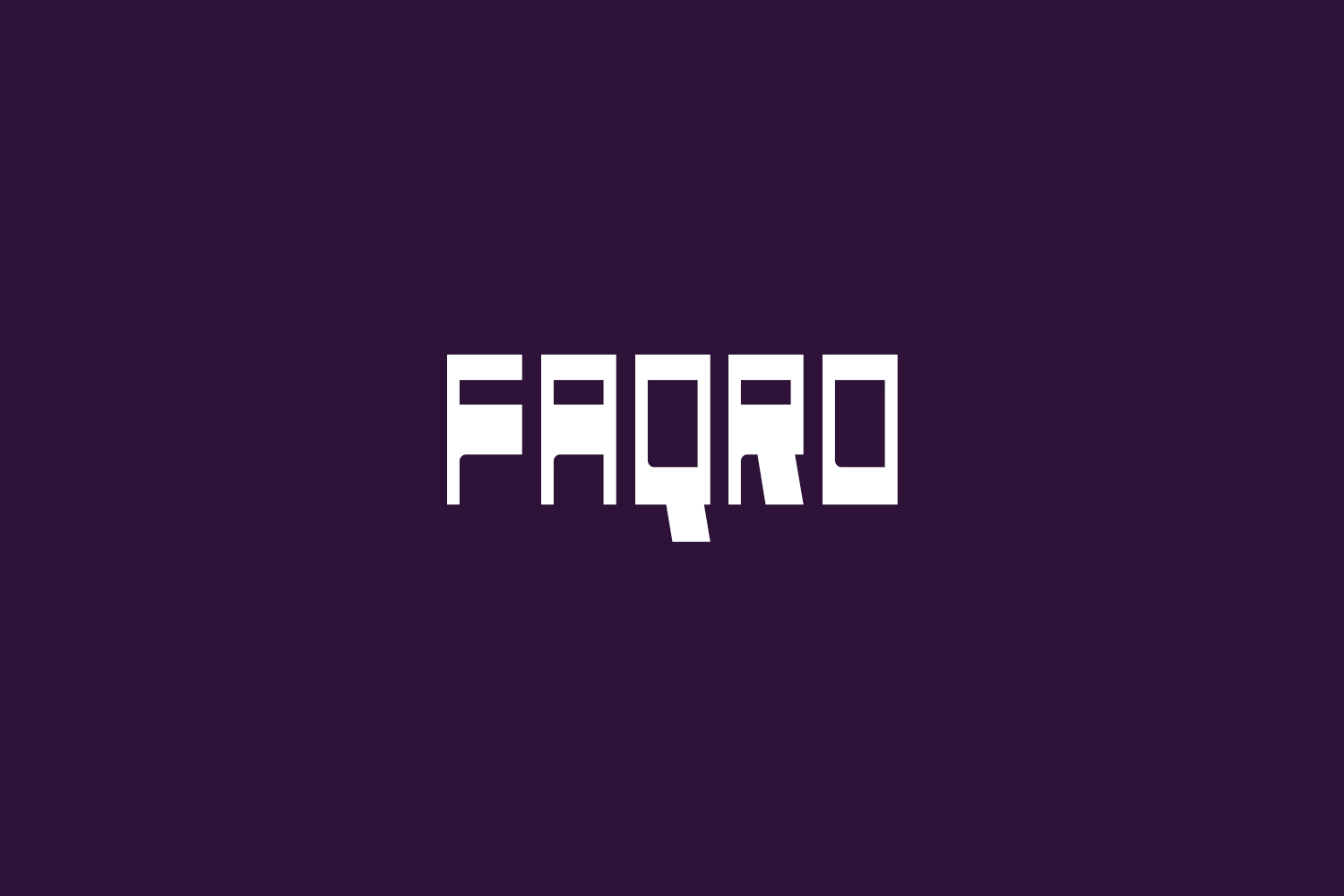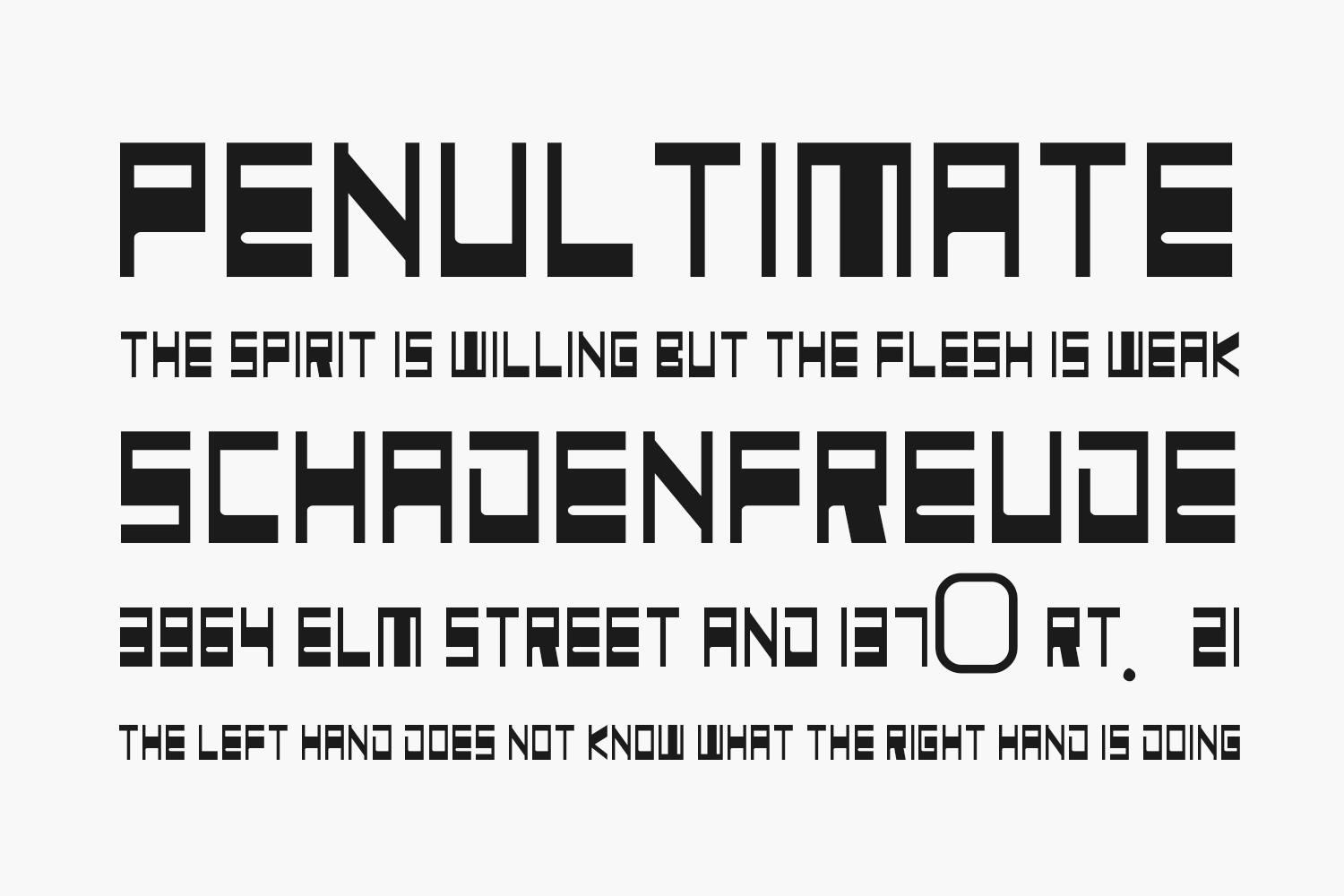
Faqro Free Font is a cool and casual-looking display font. No matter the topic, this font will be an incredible asset to your fonts’ library, as it has the potential to elevate any creation. Faqro Free Font was designed by Ffeeaarr is a demo and free for personal use only. Please purchase the full version for commercial use.